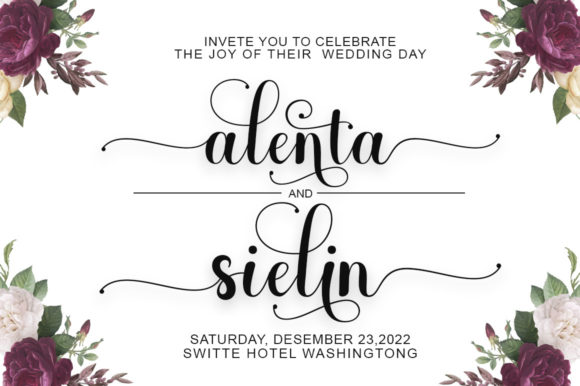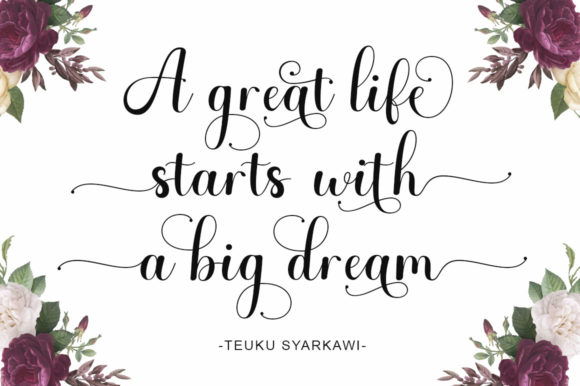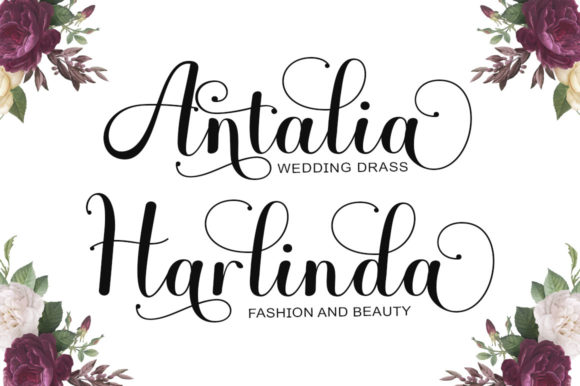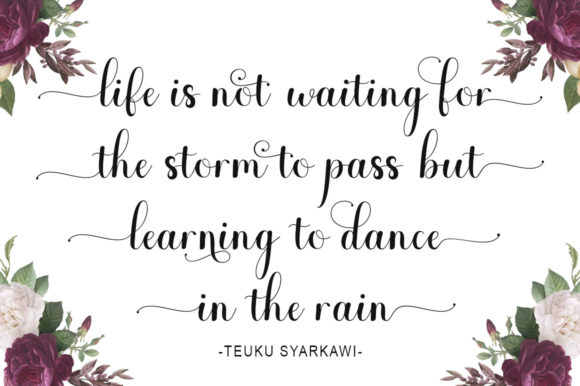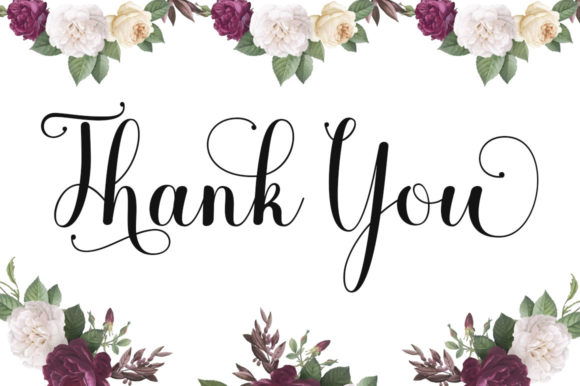
Introducing Balenta Script Font: Elevate Your Designs with Elegance
Are you a designer or crafter looking for a font that exudes elegance and sophistication? Look no further than the Balenta Script Font. This beautiful, handwritten font is designed to add a touch of refinement to any project, making it perfect for a wide range of designs.
The Characteristics of Balenta Script Font
Balenta Script is a delicate, elegant, and flowing handwritten font that boasts beautiful and well-balanced characters. Its unique design makes it an excellent match for various design projects, from wedding invitations and stationery to branding and advertising materials. The font’s flowing lines and curves create a sense of movement and fluidity, adding a dynamic touch to any design.
One of the standout features of the Balenta Script Font is its PUA (Private Use Area) encoding. This means that you can access all glyphs and swashes with ease, giving you greater flexibility and creative control over your designs. With PUA encoding, you can easily insert special characters, ligatures, and swashes into your text, allowing you to create unique and eye-catching designs.
The Balenta Script Font is incredibly versatile, making it suitable for a wide range of design projects. Whether you’re creating:
- Branding and advertising materials
- Digital graphics and social media assets
the Balenta Script Font is sure to add a touch of elegance and sophistication. Its delicate and flowing design makes it perfect for projects that require a high level of refinement and poise.
The Balenta Script Font offers a range of benefits for designers and crafters, including:
- Ease of use: With PUA encoding, you can easily access all glyphs and swashes, making it simple to create unique and eye-catching designs.
- Versatility: The font’s elegant and flowing design makes it suitable for a wide range of design projects.
- High-quality design: The Balenta Script Font features beautiful and well-balanced characters, ensuring that your designs look professional and polished.
- Time-saving: With a vast range of glyphs and swashes at your fingertips, you can create stunning designs in a fraction of the time.
Tips for Using Balenta Script Font
To get the most out of the Balenta Script Font, here are a few tips:
- Experiment with different sizes: The font looks great in a range of sizes, from large display headings to smaller body text.
- Play with glyphs and swashes: With PUA encoding, you can easily access a wide range of glyphs and swashes to add visual interest to your designs.
- Mix and match with other fonts: The Balenta Script Font pairs well with a range of other fonts, so don’t be afraid to experiment with different combinations.